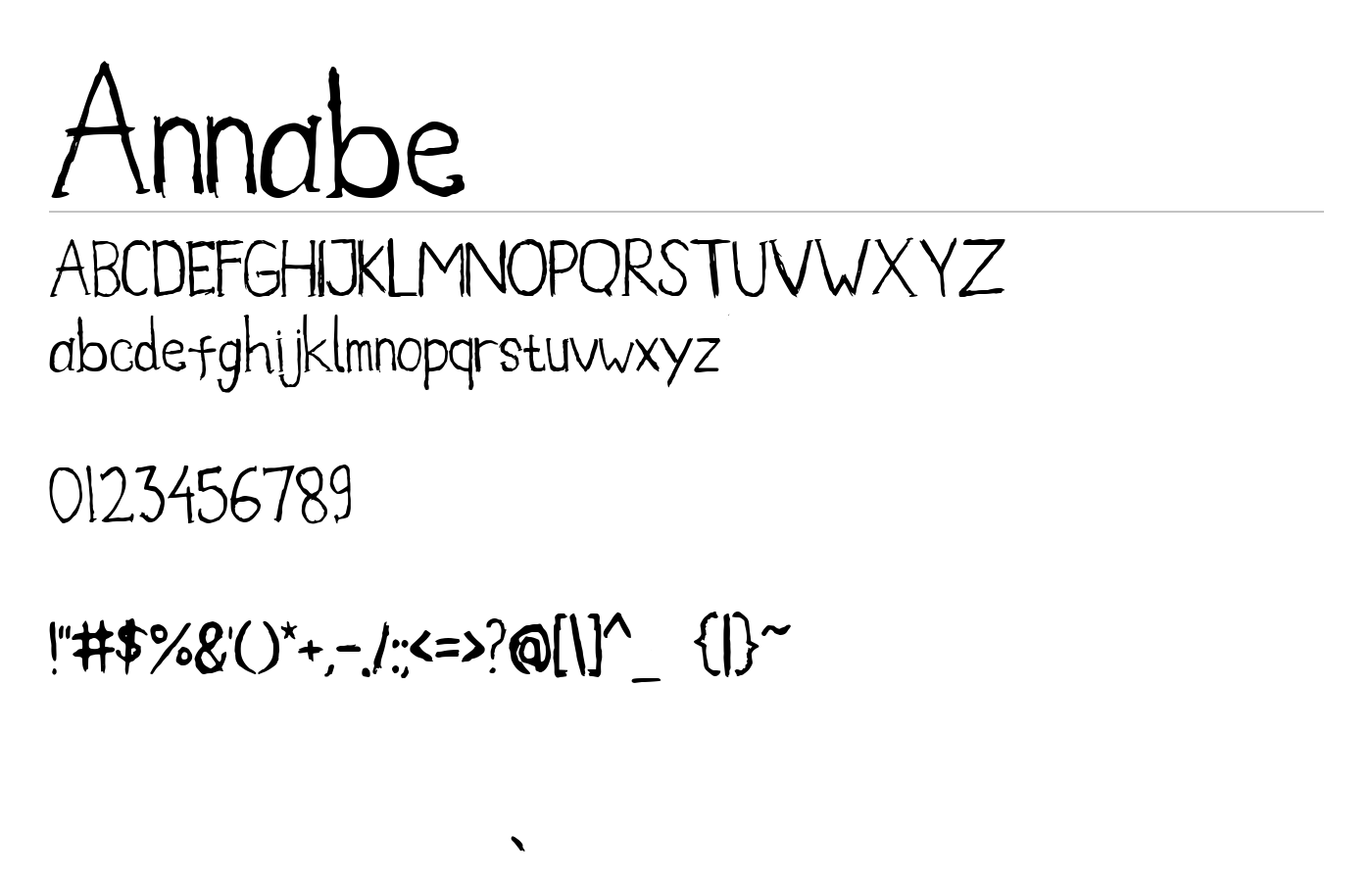
Annabe is a distinctive handwritten sans serif font that features irregular, slightly jagged strokes giving it an organic, playful, and somewhat whimsical character. Its narrow letterforms and uneven lines create a casual, artistic feel, making it ideal for creative projects, informal branding, and unique headlines that seek personality and a handmade touch. This font works best where a quirky, approachable style is desired, such as in posters, greeting cards, and boutique packaging.
Annabe Font